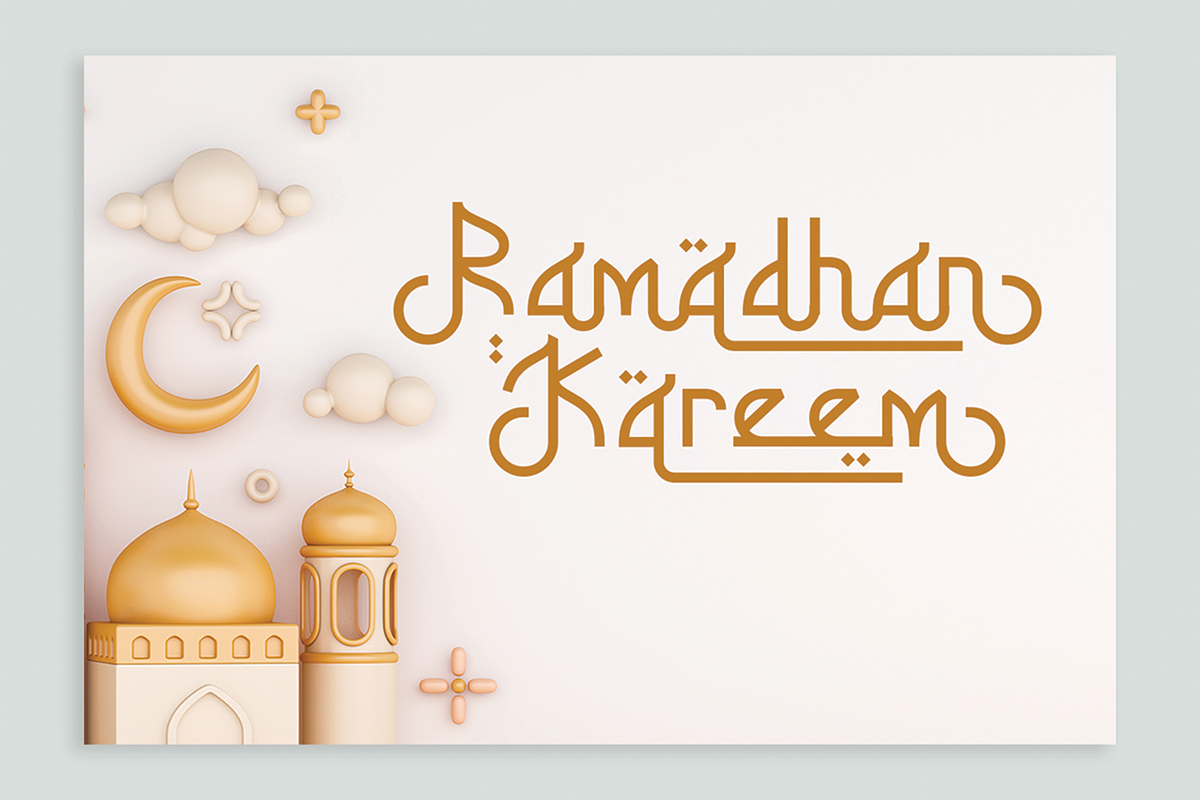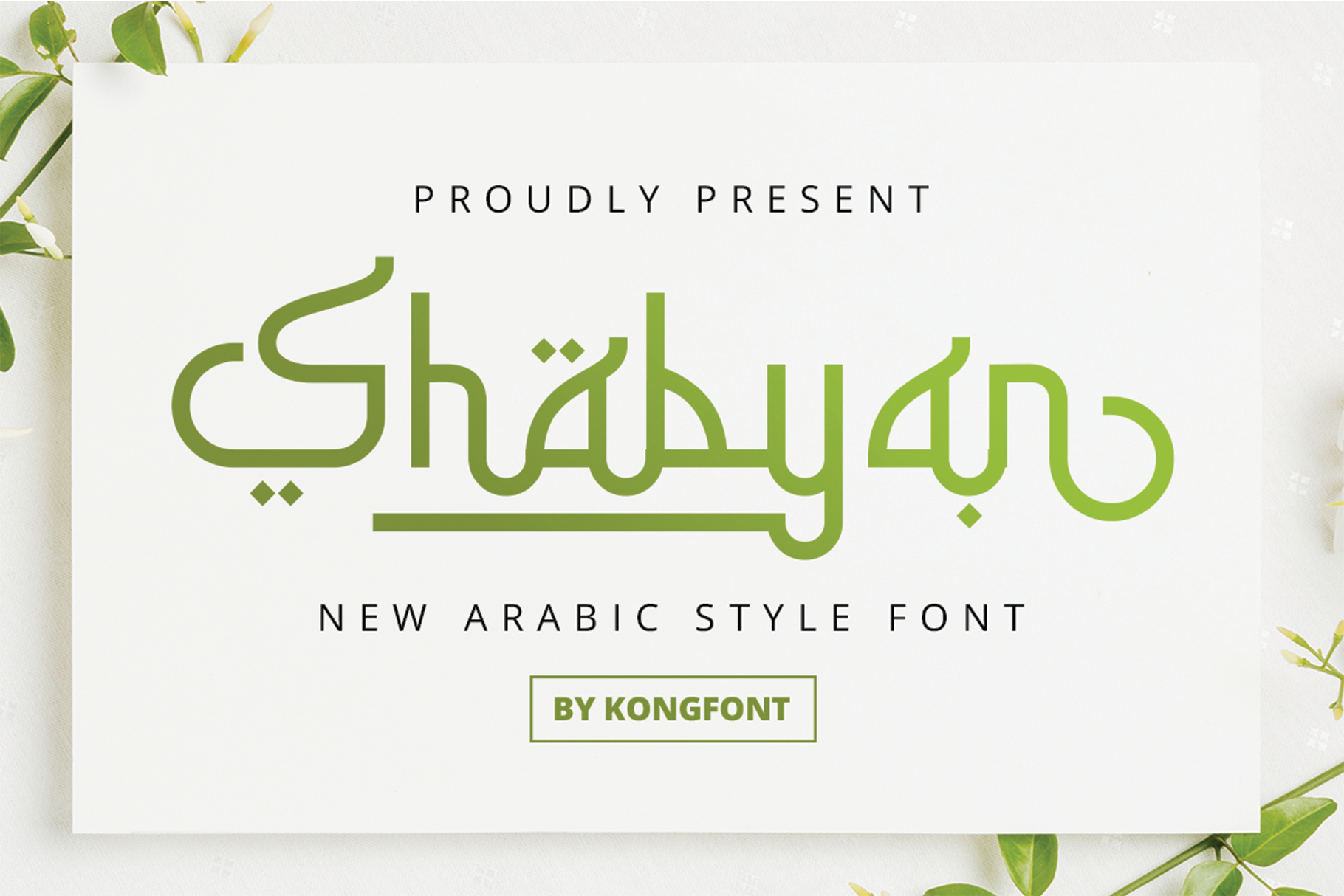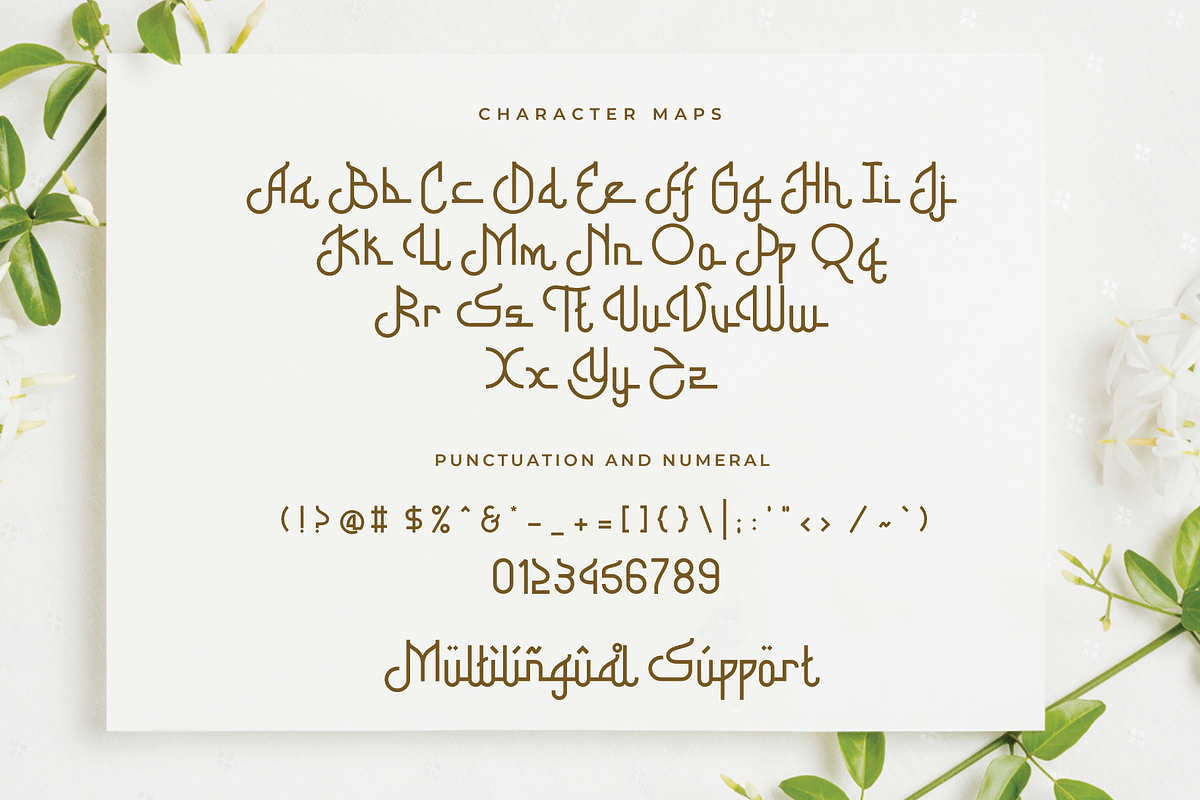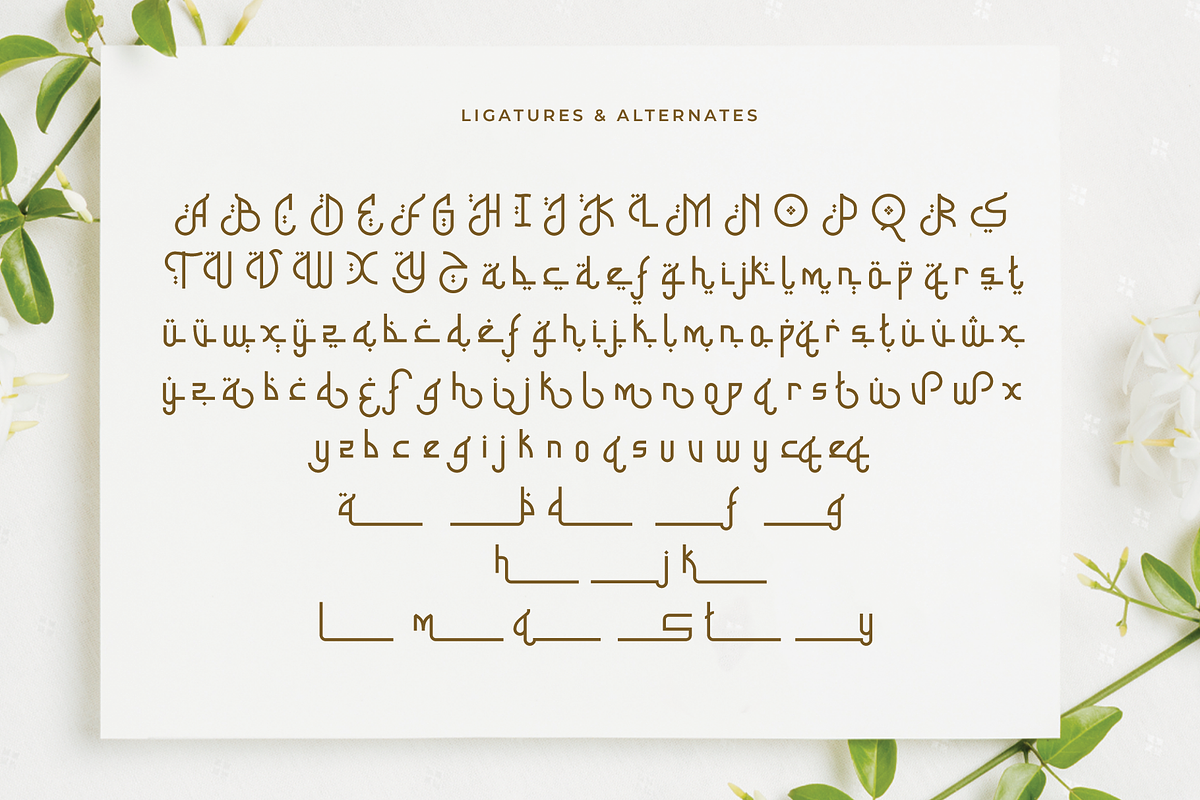
Shabyan - Fresh Arabic Style Font
Shabyan is a fresh Arabic-style font crafted for modern designers seeking unique elegance. Its bold, decorative elements are ideal for eye-catching branding, Islamic art projects, and creative typography. With a blend of traditional and modern touches, Shabyan stands out, making it perfect for logos, product packaging, and any project needing an authentic Arabic feel. Transform your designs with this versatile font that effortlessly merges cultural richness with contemporary style.